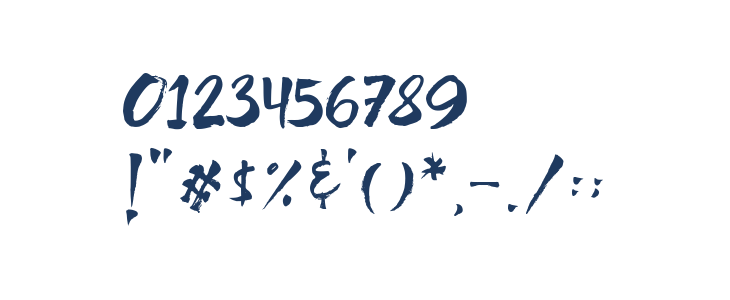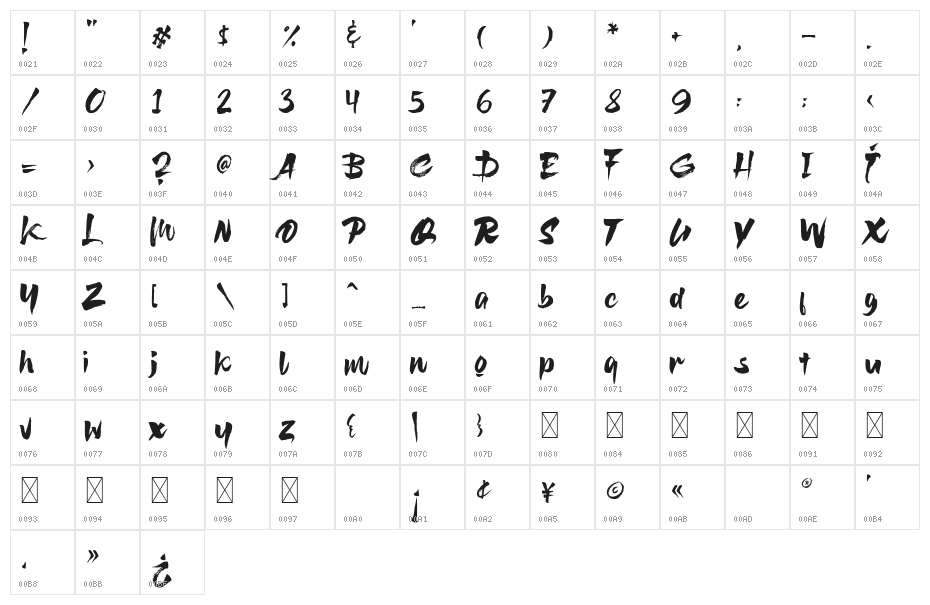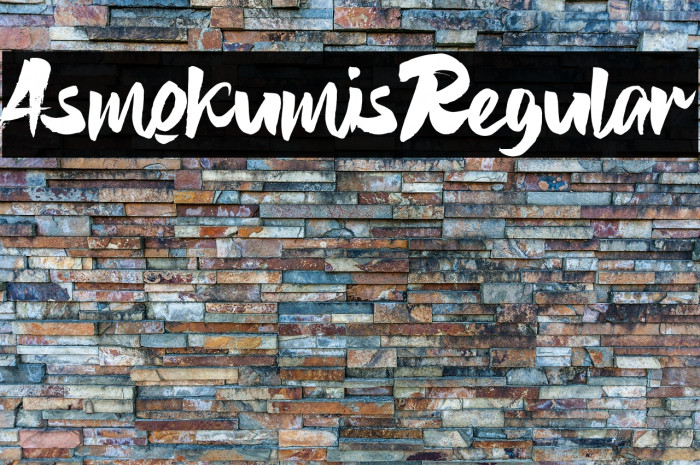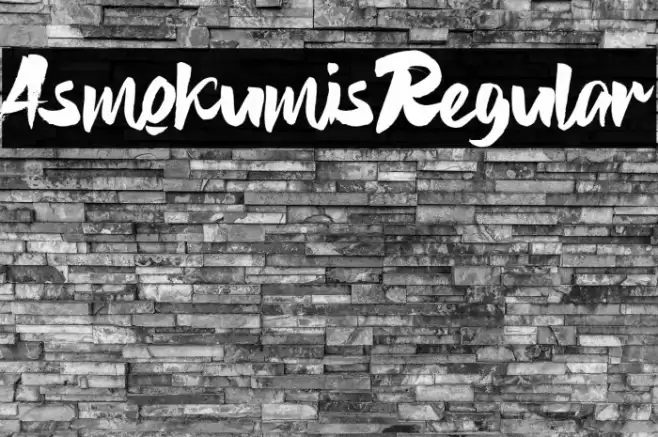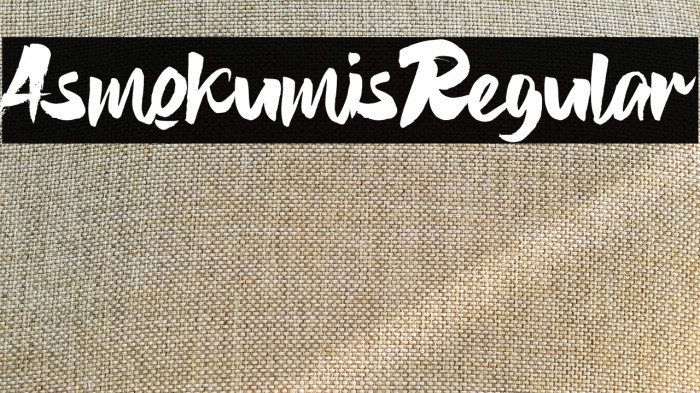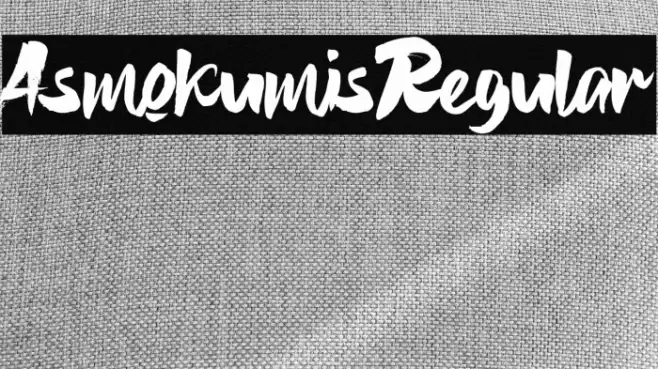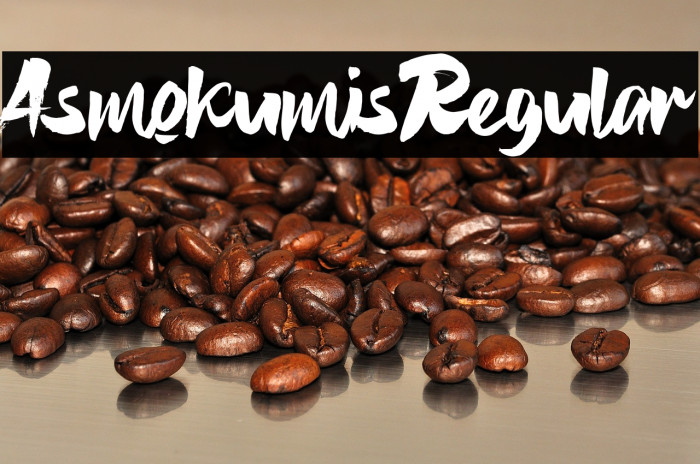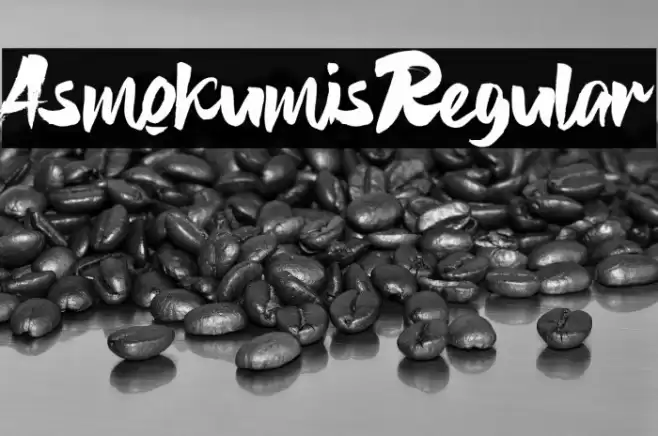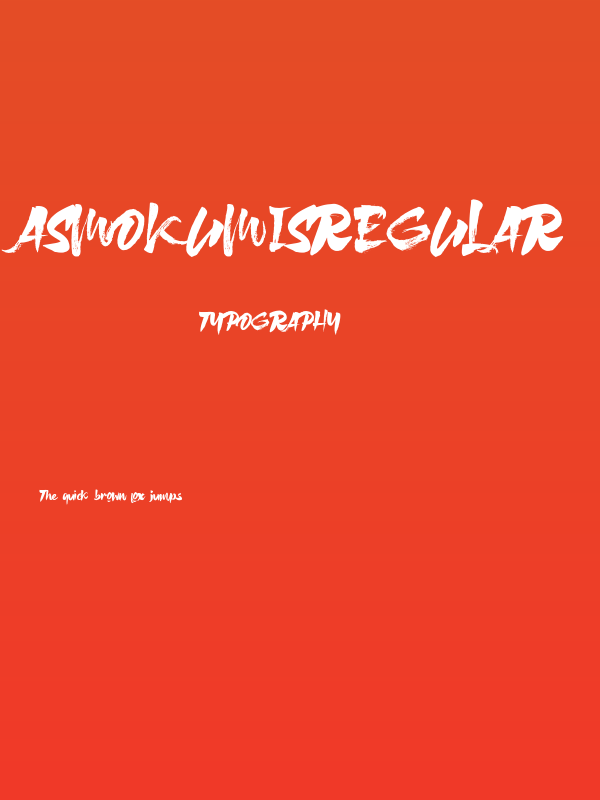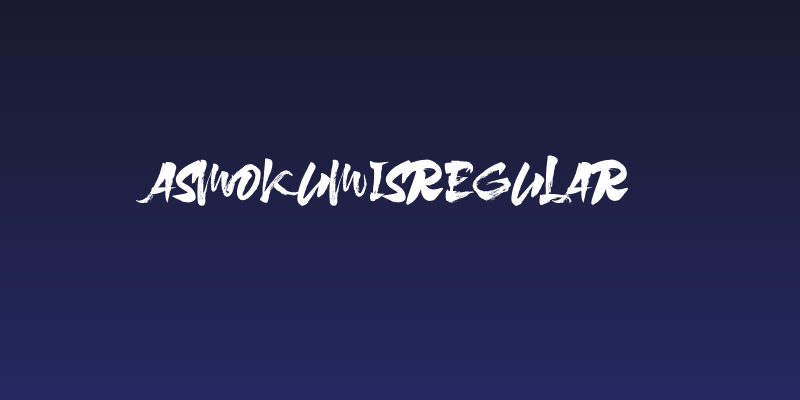
AsmokumisRegular Font
AsmokumisRegular Description
This font exhibits a bold, expressive style with a brush-like texture that gives it a dynamic and energetic appearance. The strokes are thick and uneven, creating a sense of movement and spontaneity. The uppercase and lowercase letters maintain a consistent style, with a slightly slanted orientation that adds to the casual, handwritten feel. The numbers and special characters follow the same aesthetic, ensuring uniformity across all elements. The overall look is modern and artistic, making it suitable for creative projects that require a personal touch.